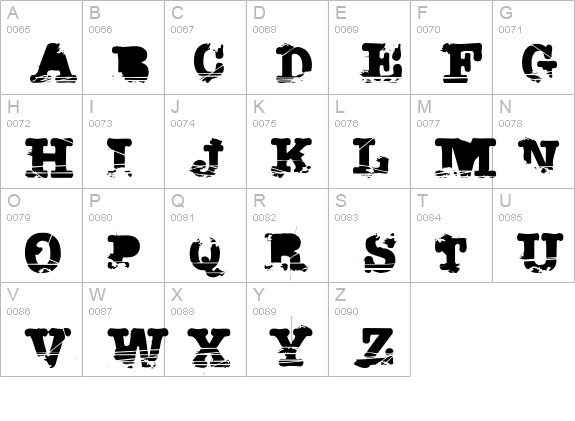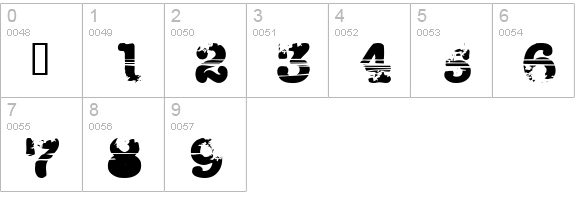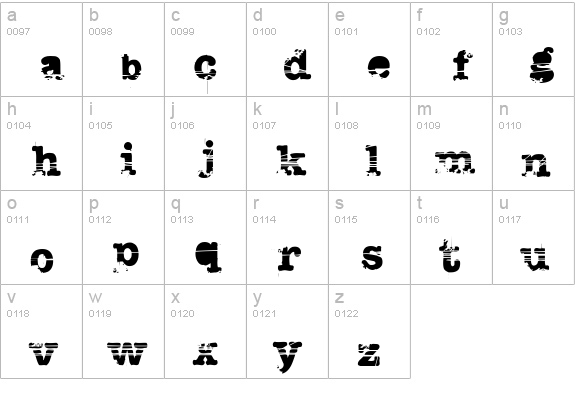
Sacrafical Font Details
Introducing Sacrafical Font, a stunning display typeface that combines elegance with a touch of mystery. Perfect for capturing attention and adding a unique flair to your designs, this font is sure to make a lasting impression. With its intricate details and exquisite curves, Sacrafical Font exudes a sense of sophistication and refinement. Each letter is carefully crafted, resulting in a visually striking display that is both eye-catching and memorable. Whether you're designing a logo, creating a headline, or designing a poster, this font will elevate your work to new heights. But what sets Sacrafical Font apart is not just its impeccable design, but also its availability. Yes, you heard it right - Sacrafical Font is completely free! You can easily download this font for free at FontsMarket.com. Now you can unleash your creativity without any limitations or restrictions. Designed with versatility in mind, Sacrafical Font can be used in a variety of projects. Its timeless appeal makes it suitable for both modern and classic designs. From fashion magazines to event invitations, this font will add a touch of elegance and sophistication to any project. So why wait? Download Sacrafical Font today and let your creativity soar. With its free availability at FontsMarket.com, there's no reason not to add this stunning font to your collection. Whether you're a professional designer or a hobbyist, Sacrafical Font is the perfect tool to take your designs to the next level. Don't miss out on this opportunity to enhance your creative endeavors - get Sacrafical Font now!